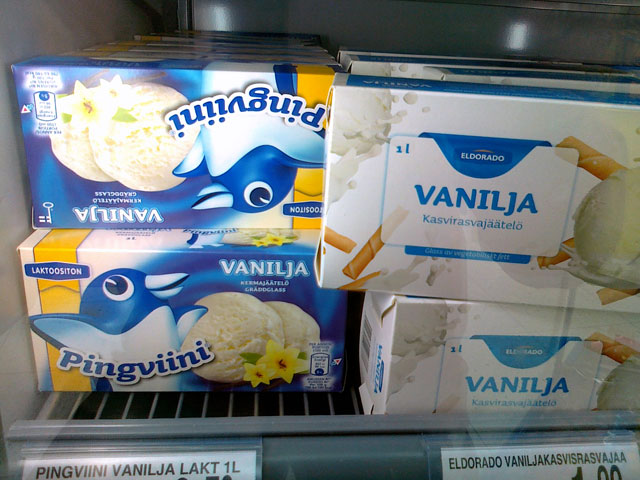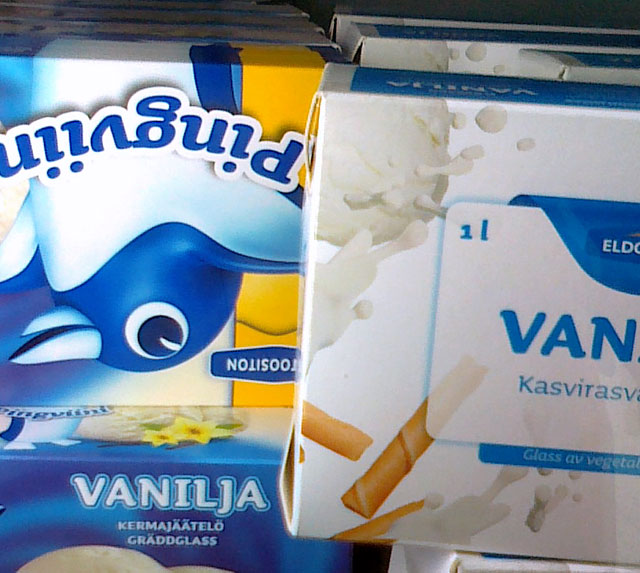
Two weeks ago we opened a small world cup quiz, when we released Tripper Tricolor. It may be no surprise that most participants were wrong to completely wrong. However. One person predicted the final outcome correctly. Just one person? Yes, just one person. We’re trying to get in touch with him. Hopefully he provided his correct email address. Until that time we call him Jeremy the Oracle. Jeremy, you are amazing. Come, and pick up your prize.
Last week we opened a world cup quiz for some days. Here is the combined prediction of all participants. Up to now the majority is correct. Winners of the quiz will be informed next week after the final. Fingers crossed.
Tripper Tricolor is our latest font release. A multi-colored, rock steady display font. With Tripper Tricolor all patriots can set texts in their national colors, and the rest of the world can set it in any other colors they prefer. Tripper Tricolor is easy to use and works nicely across the world wide web, as well as with your desktop apps.
The World Cup Quiz
You can even win this font for free. Predict the best 3 countries of the World Cup in the World Cup Quiz. A piece of cake now that there are just a couple of teams left. Note that you can only join the quiz until 03 July 2014, only 2 days from now. Hurry up and good luck.
Our custom font family Stockmann Sans is currently on show at the Päivälehti Newspaper Museum in Helsinki, Finland. The exhibition is called “Tunnetko tyypin? Kirjaintyyppien merkillinen maailma”. In case you don’t speak Finnish: it means something like Do you know type? If not, don’t worry because letters are an even stranger world than Finland itself. Only Fins can come up with a title like this. Of course. This educational exhibition makes type design accessible for a broad audience, and features some creations of contemporary Finnish type designers like Hanna Hakala, Saku Heinänen, Jarno Lukkarila and our good own Sami Kortemäki.
Three weights, geometric sans, elegant italics, Latin & Cyrillics, from shop windows to price tags to coffee cups, from Helsinki to Moscow. Please meet Stockmann Sans, a custom font family by Underware for Scandinavia’s largest department store:
During the last couple of weeks we gave the Poles a hard time. We’ve been teasing them a little during our Wo-Wo Polski? Tour. That tour ended yesterday, so now we have to make it up again with our Polish friends. Therefore we have an über-unique offer: Mistrzowie caps! Poles know that it means “Champions”, and also know that Poland never has been a champion with anything. Therefore these caps are already collectors items, never seen before. Wear them, impress your friends and be prepared in case Poland ever wins something in the future. Polish colours, polish style. Alles geben, cause one day it might happen: Poland wins.
This spring we’re gonna travel towards the Polish borders for some lectures and workshops during our “Wo-Wo Polski?” roadtrip. But we will not enter Poland. We repeat: we will not enter Poland. We are only gonna wave to the Poles. Miło cię spotkać! Four cities in three countries in one month, let’s hope our van won’t let us down.
In this 4-day long typeworkshop at the Vilnius Art Academy you’re gonna create a typographic toolbox for social media. Short letterings which represent your different moods, which can be used to communicate your status in social media. You can use these letterings for your most favorite social media application. Letterings can be animated as well, just keep them pure typographic, black & white, without illustrative elements. Digital outline drawing of typefaces will be introduced, as well as some foundations of type design and lettering.
Thursday 24 April: lecture by Underware at the Vilnius Academy of Arts, Maironio str. 3, Vilnius. Be in room 312 not any later than 18:00 o’clock, as Sami will then start to unravel the invisible research behind designing typefaces.
Lecture at the University of West Bohemia, as part of the DE.SIGN 2014 project. Faculty or Art & Design, 16:00 o’clock, sharp.
The iceberg called type design
Type design is maybe the most subconsciously observed visual human creation. Most people will read a text without notifying the typeface itself, and that’s totally legitimate. Only a happy few will notice the typeface which is used. You can call them graphic designers with a job-related disability if they can tell the name of the font, including its designer. But even those happy few will mostly not be aware of the kind of research which is involved in making those typefaces. The pan-European type design studio Underware will reveal the research behind their typefaces, and demonstrate that type design is like an iceberg: 90% is hidden under the water. A design lecture told from the submarine. Be aware: it can be dark below sea level…
24 April: Thursday at 19:00, lecture “The iceberg called type design” (see above) at Instituto Cervantes, Na Rybníčku 536/6, Prague. Open for public, so drop by if you’re around.
25 April: Type workshop at Prague College, School of Art & Design. One day to explore the foundations of type design, and offer yourself a kickstart in a new territory.
Apparently something inside Bello Script makes people go ‘woooeh, yes, I will make that myself’. After episode 1 & 2, here is another Bello-goes-freestyle episode. This time a bikeshop in Toronto went DIY all the way.
Game is on in the Finnish supermarkets.
Pingviini vs Eldorado = Nestlé vs Tuko Logistics = Sauna vs Sauna.
Of course it’s cool to pick a typeface called Sauna for the freezing compartment…
Is this the “if you can’t beat them, join them” kind of font choice?